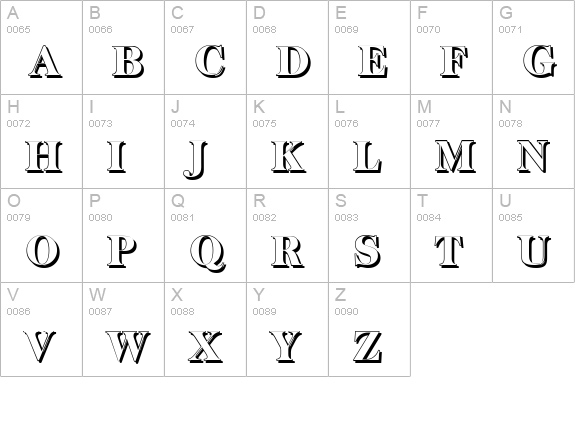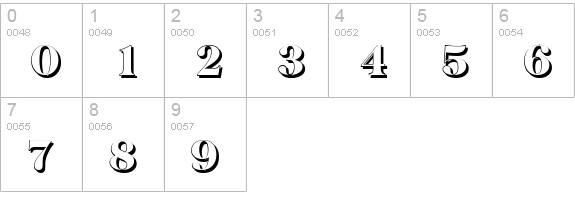
BaskervilleShadow-Heavy-Regular Font Details
BaskervilleShadow-Heavy-Regular is a heavy, high-impact variant in the BaskervilleShadow typeface family \xE2\x80\x94 well suited to high-impact headlines, posters, and display advertising.
BaskervilleShadow-Heavy-Regular font is a timeless and elegant typeface that exudes sophistication and class. With its bold and striking shadow effect, this font is sure to make a statement in any design project. Its clean lines and classic serif style make it perfect for adding a touch of refinement to any text. Best of all, BaskervilleShadow-Heavy-Regular font is available for free download at FontsMarket.com. Whether you're working on a professional project or a personal creative endeavor, this versatile font will add a touch of elegance and style to your work. Don't miss out on the opportunity to enhance your designs with this beautiful typeface - download it for free today!